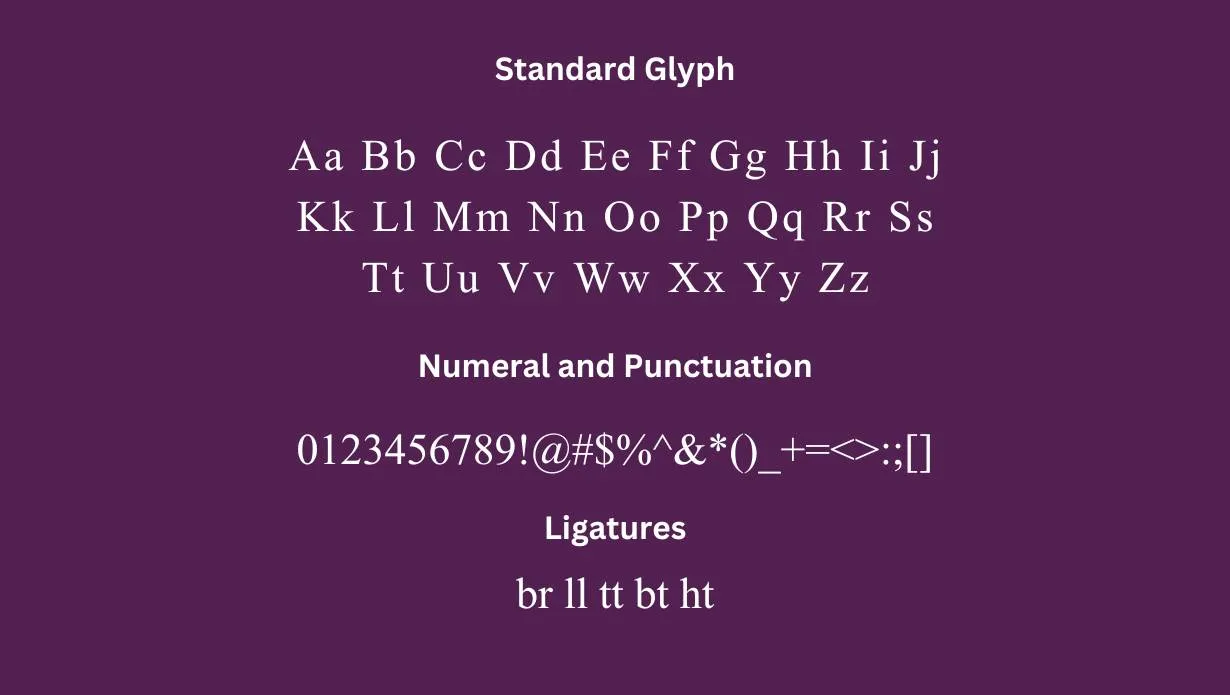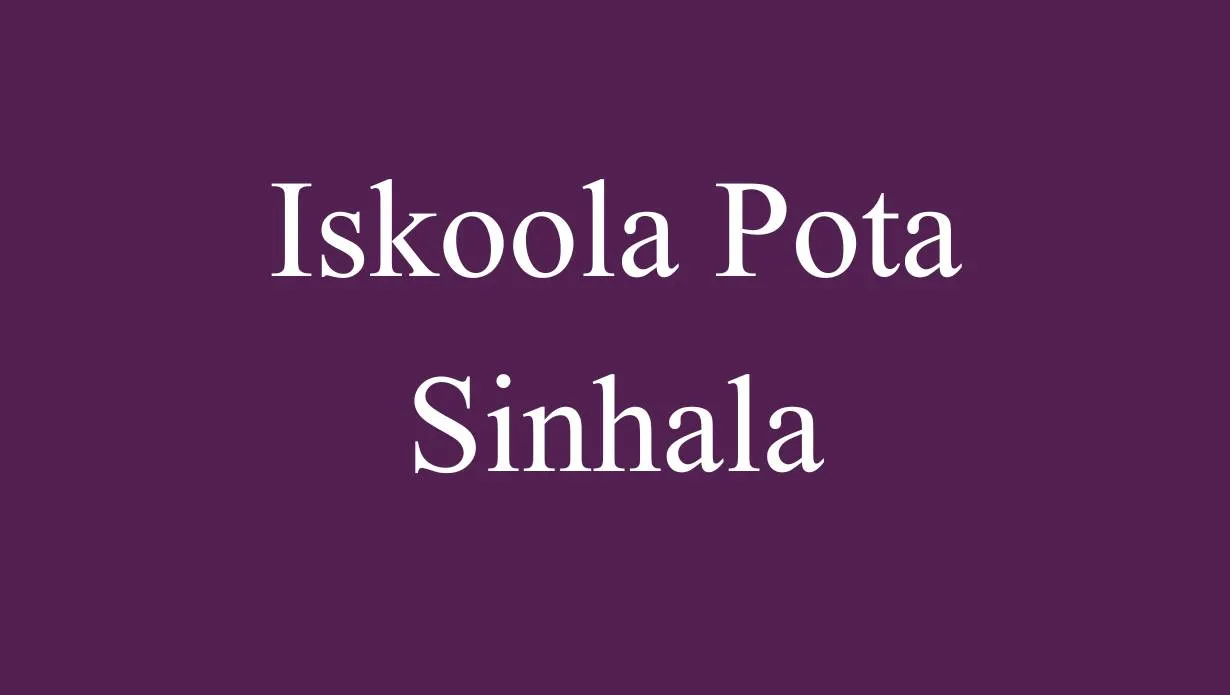
About Iskoola Pota Font
Iskoola Pota, translating to "School Book" in Sinhala, is one of the most foundational and widely recognized digital fonts for the Sinhala script. Created to standardize and promote Sinhala computing in Sri Lanka, it features a clear, monolinear design with open letterforms optimized for readability in textbooks, government publications, and early computer screens. For a generation, it was the de facto standard for digitizing Sinhala content, playing a crucial role in the island's transition to digital literacy and administration. Its familiar, functional aesthetic remains deeply associated with official and educational communication in Sri Lanka.